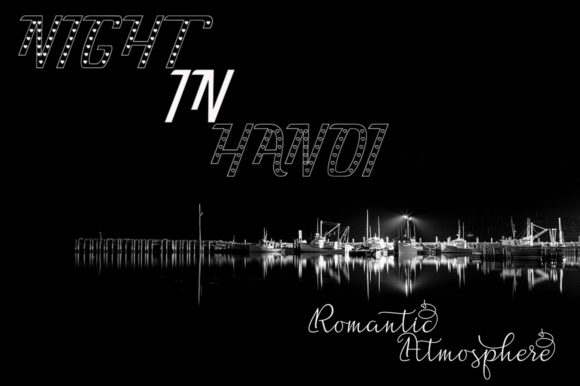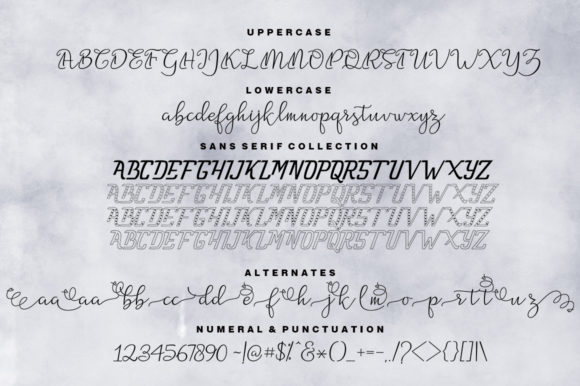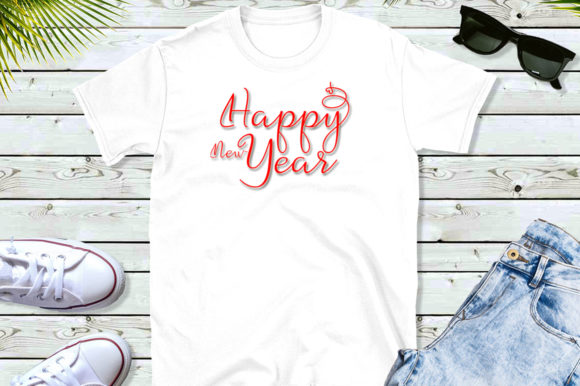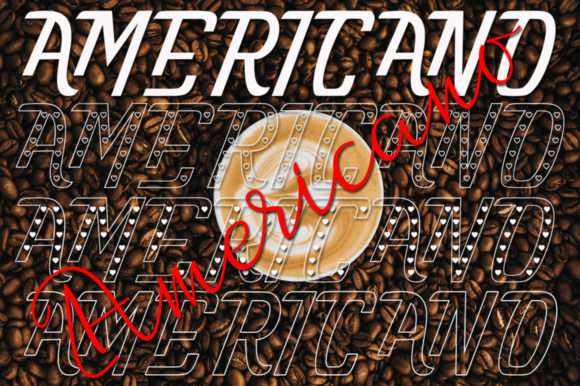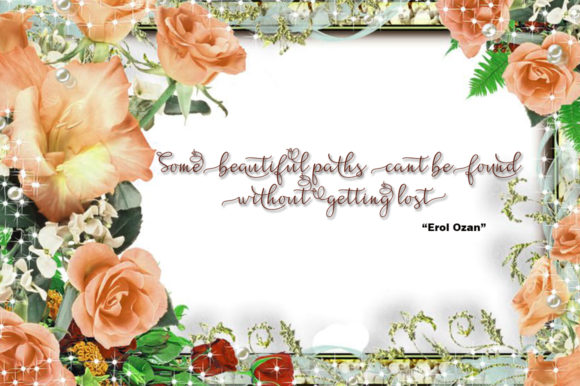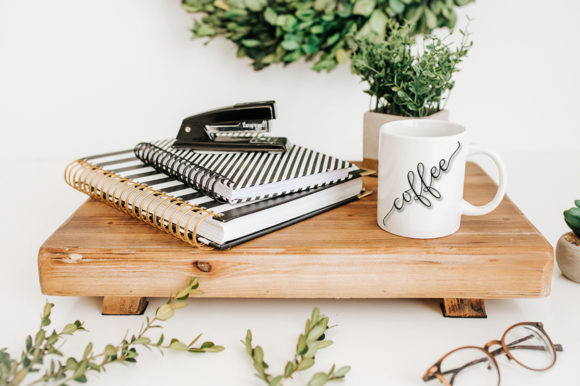
Introduction to Nathalia Duo Font
The Nathalia is a romantic typeface.
It includes a script and sans version which can be combined perfectly It’s bold and elegant style is perfect for logos, wedding invitations, t-shirts, letterheads, and much more.